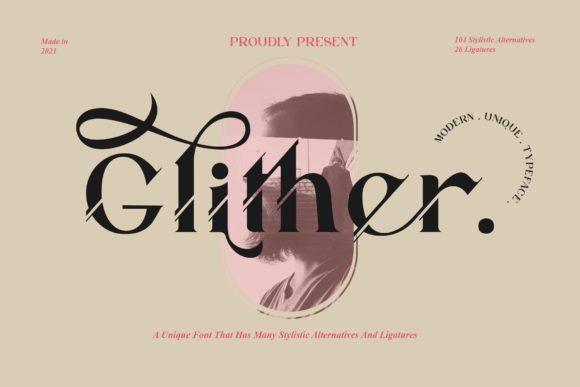
Embark on a typographic journey with Glither Font, an enchanting serif masterpiece that exudes modern sophistication and timeless elegance. This font family is a symphony of graceful curves, delicate serifs, and captivating details that will transform your creative projects into visual masterpieces.
Glither Font is the perfect choice for those seeking a font that radiates both charm and refinement. Its impeccable design lends itself effortlessly to a wide range of applications, from elegant logos and branding materials to heartfelt invitations and stationery. Whether you're designing a wedding invitation, a social media post, or simply seeking a touch of sophistication for your creative projects, Glither Font will elevate your designs to new heights.
Transport yourself to a world of timeless elegance with Glither Font. Embrace its classic allure and create designs that resonate with grace and refinement. Let your imagination soar as you explore the endless possibilities that await you with this remarkable font family. Experience the captivating beauty of Glither Font and unlock a world of creativity that knows no bounds.
For your upcoming wedding extravaganza, let Glither Font play a starring role. Its enchanting characters will dance across your welcome sign, setting the tone for an unforgettable celebration. Picture the joy on your guests' faces as they're greeted by this font's timeless elegance, a testament to the love and care you've poured into every detail. Glither Font will transform your wedding day into an affair of exquisite beauty, leaving a lasting impression on the hearts of all who witness it.